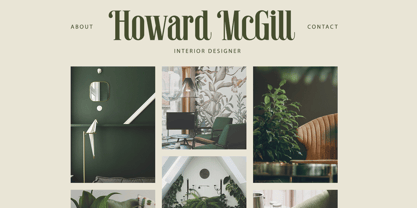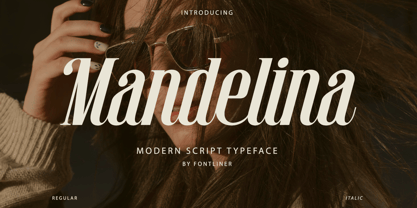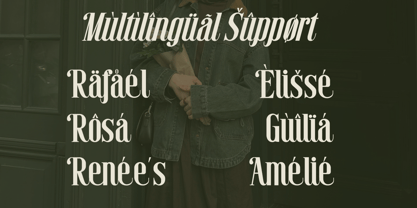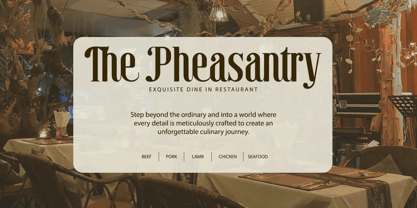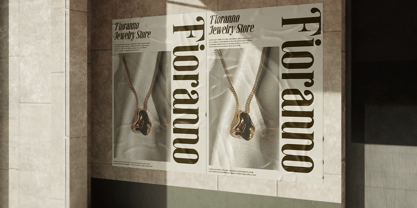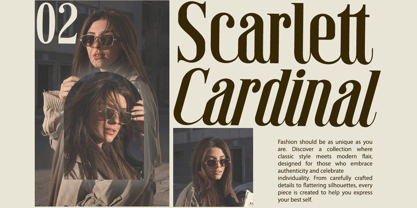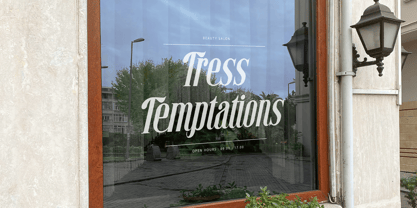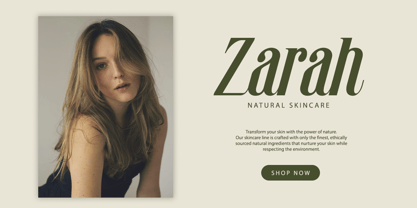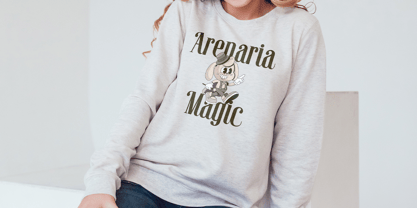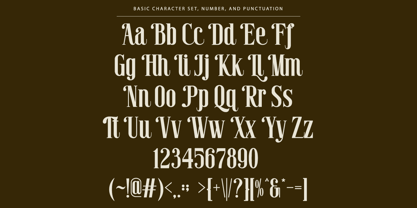
Mandelina
by Font Liner
The Mandelina Font Family was designed by Ghina Luthfiarieska and published by Font Liner. Mandelina contains 2 styles and family package options.
Mandelina is a modern of script fonts that connect one another with serif font characters. This font is perfect for your creative projects such as Logotype, printed quotes, invitations, cards, product packaging, letterheads, clothing, web designs, magazines, books, etc.